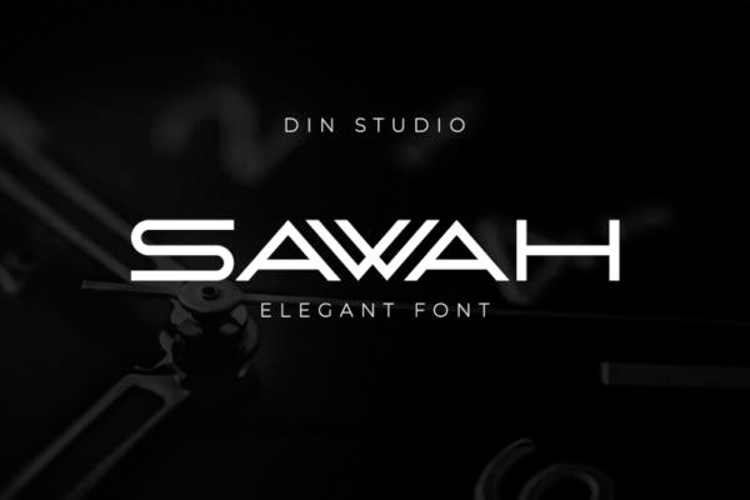
Sawah Font
Sawah, a modern and elegant sans serif font showing abstract shapes in all their eclectic beauty. This font will look truly outstanding in a wide range of contexts which is best used for logos, brandings and quotes.